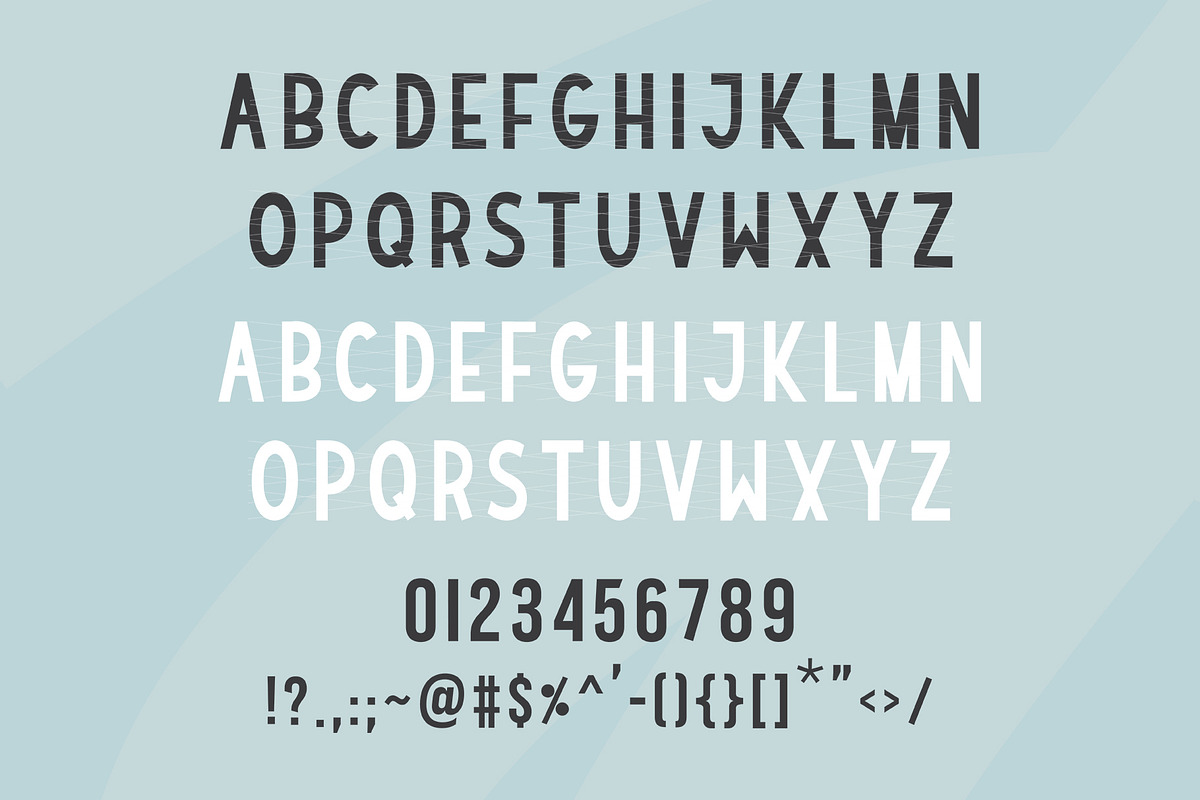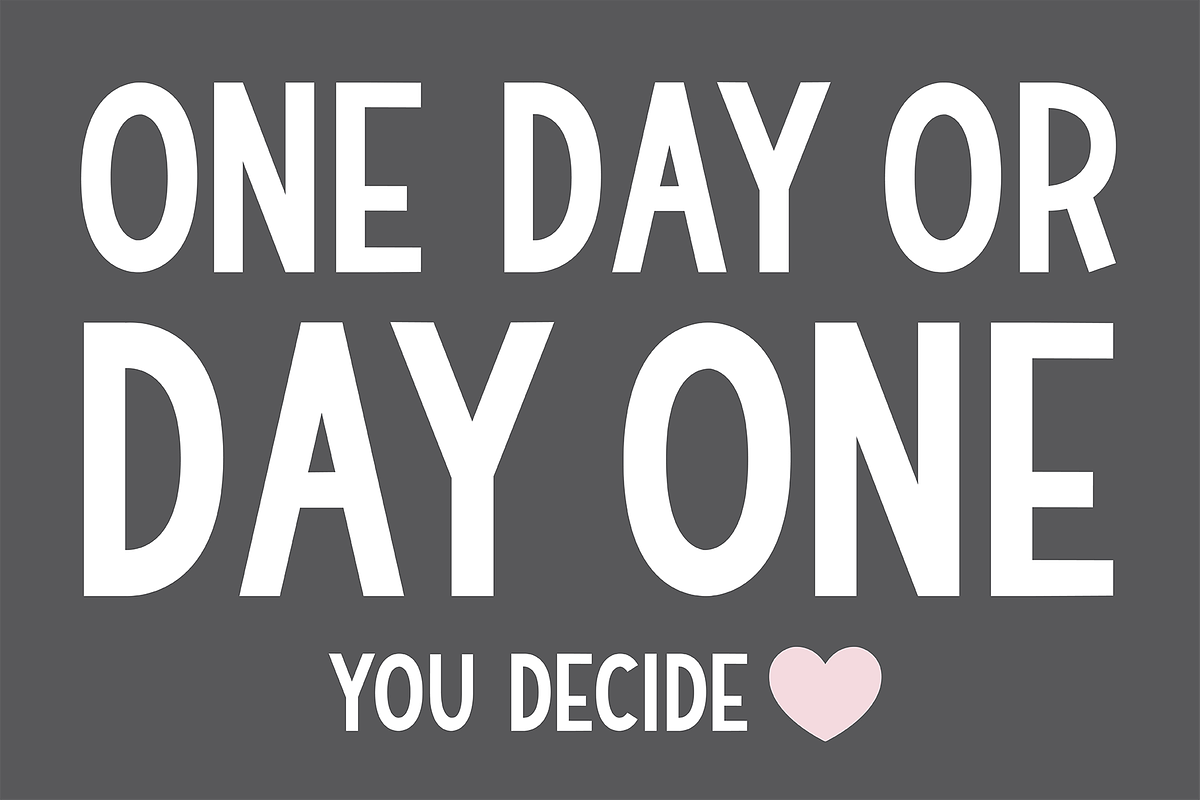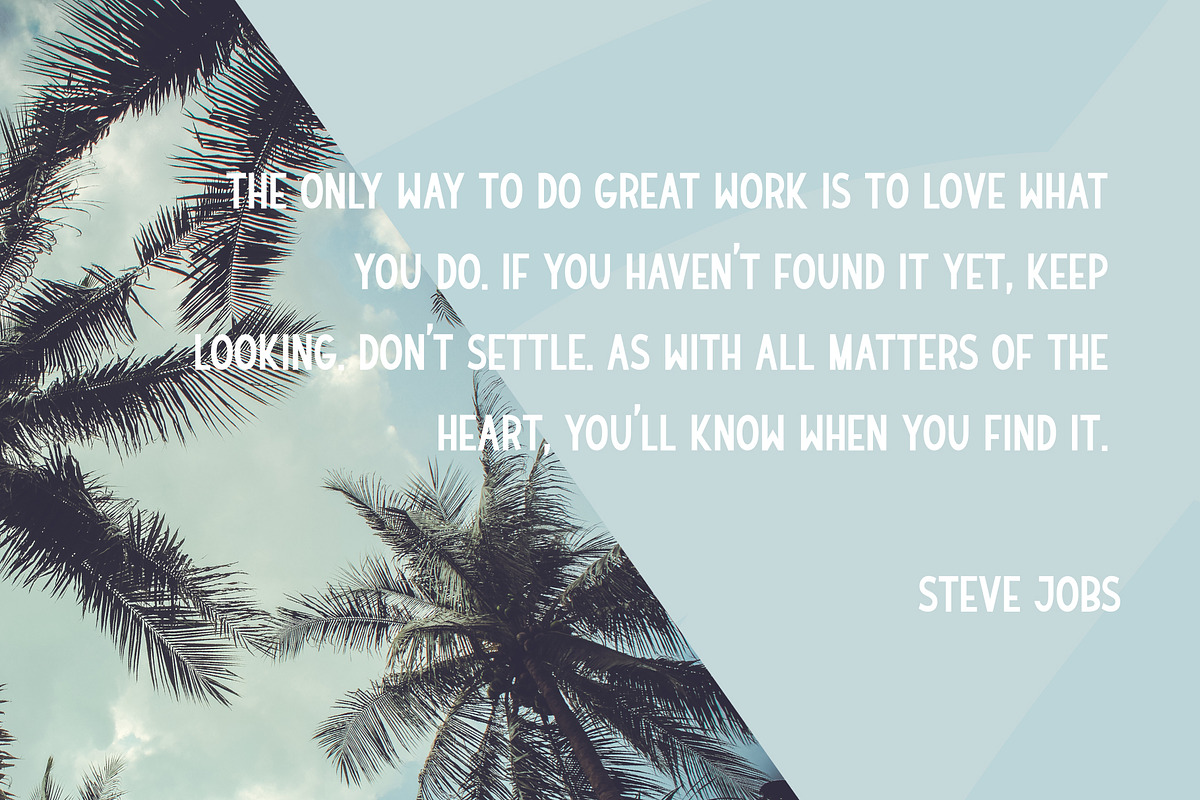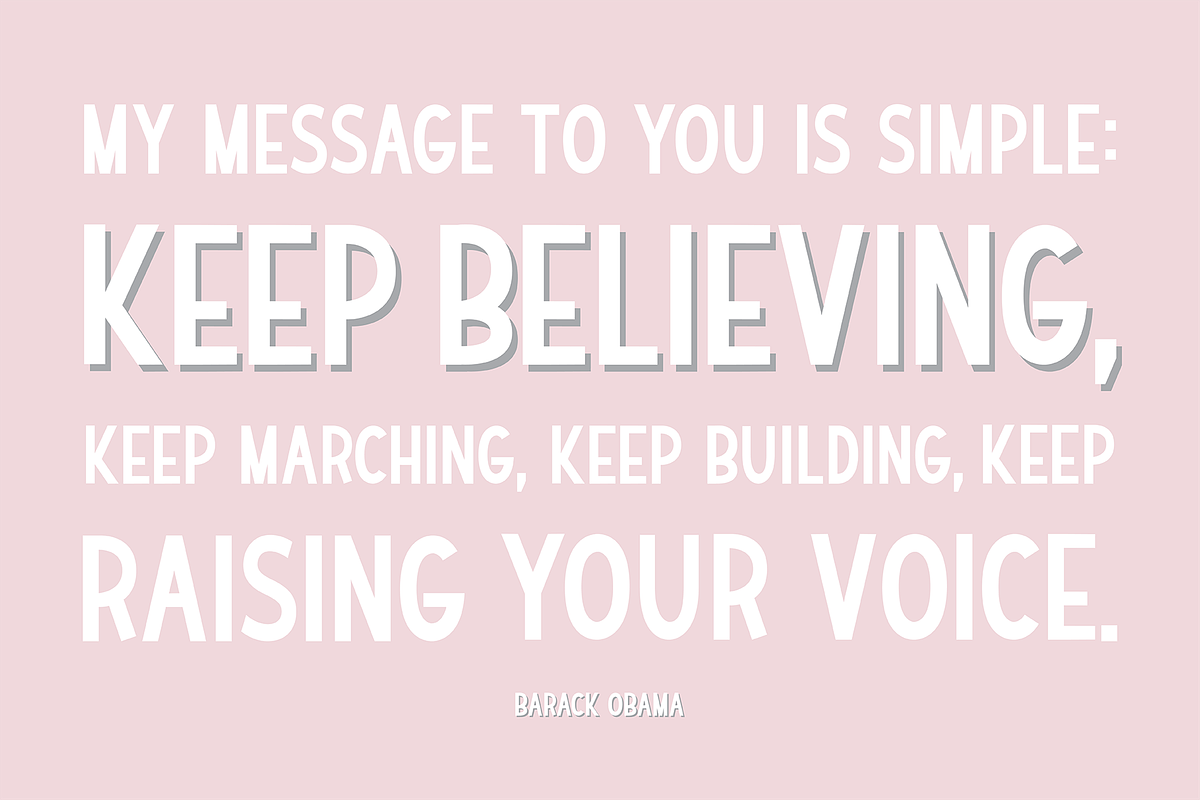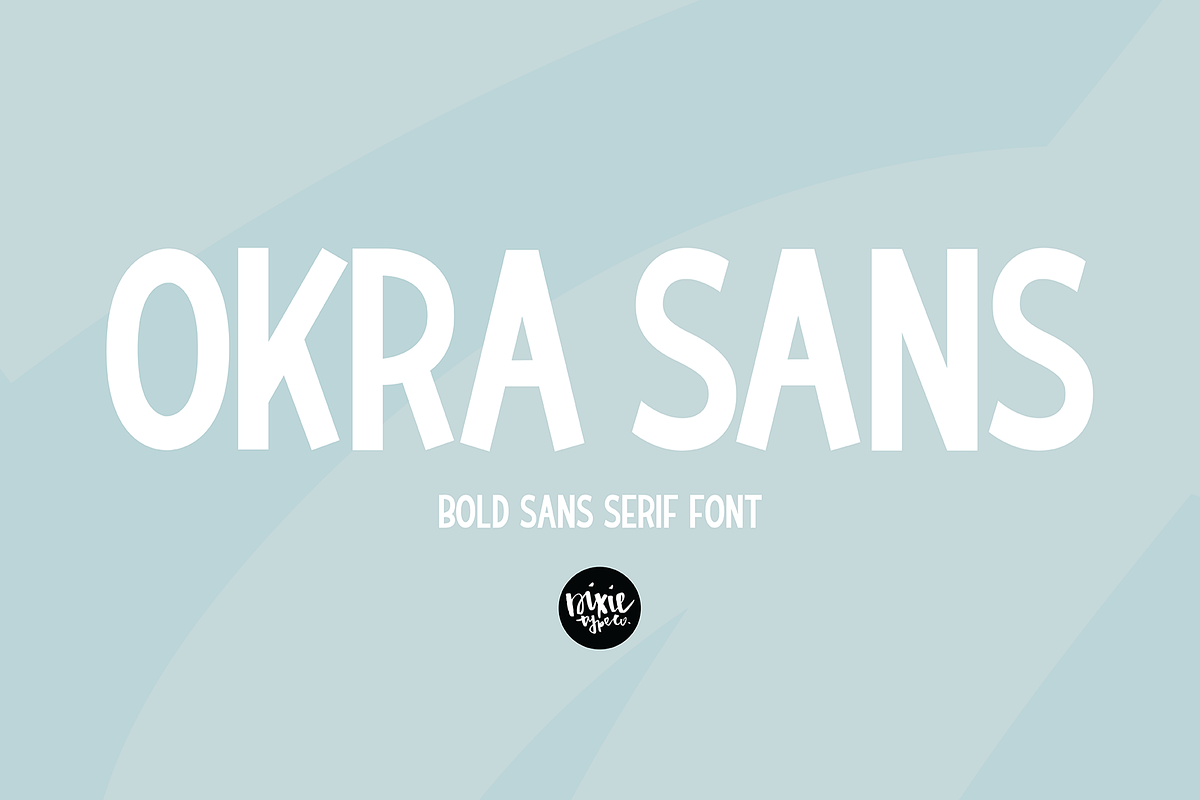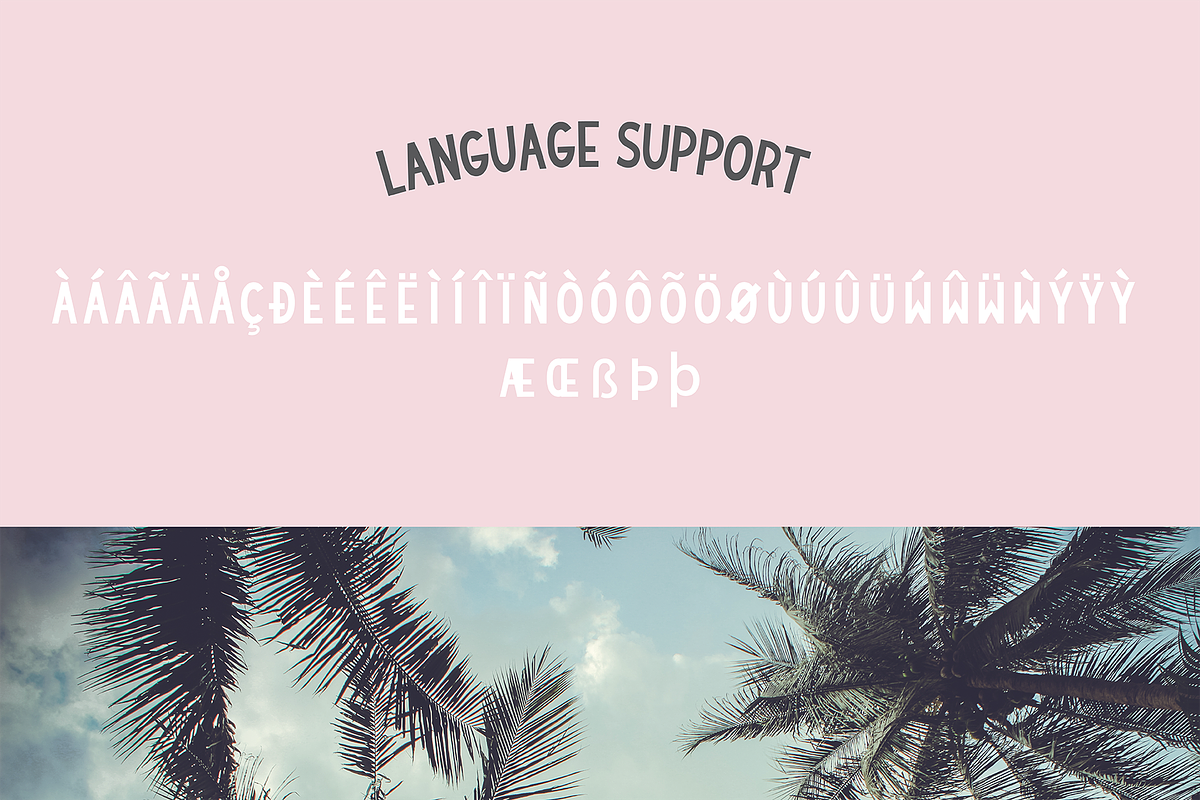
OKRA SANS Bold Sans Serif Font
{ A typographic font hand-lettered with love by Dixie Type Co. }
OKRA SANS is bold, display, sans serif font that will compliment any script font. This works great in projects that use lots of text. Use it on craft projects, wedding invitations, business cards, party invitations, signs, etc.!
Font includes: Upper and lowercase glyphs (same glyph styles, but uppercase glyphs are taller.) Numbers Punctuation Language support with the following characters: ÁÂÃÄÅÇÐÈÉÊËÌÍÎÏÑØÒÓÔÕÖÙÜÚÛẂŴẄẀÝÿỲÿÆŒSSÞÞ